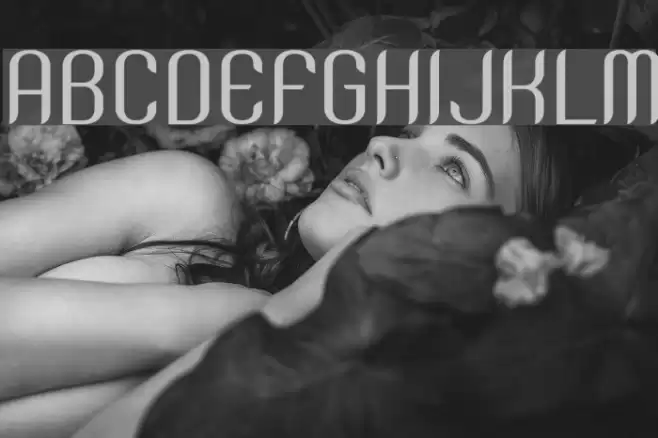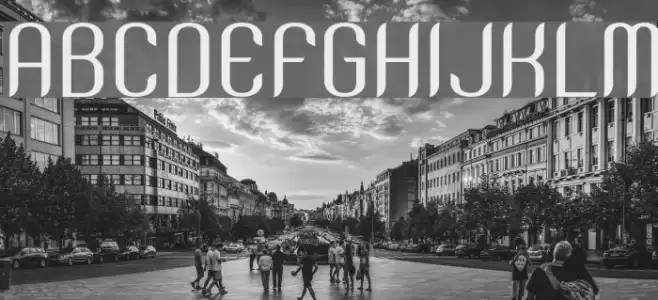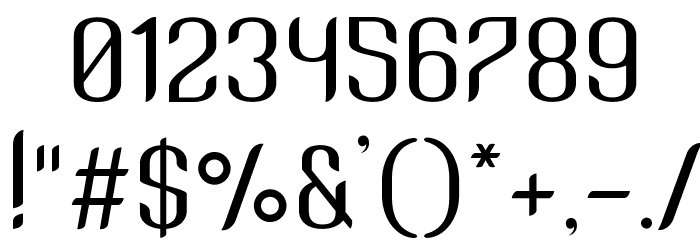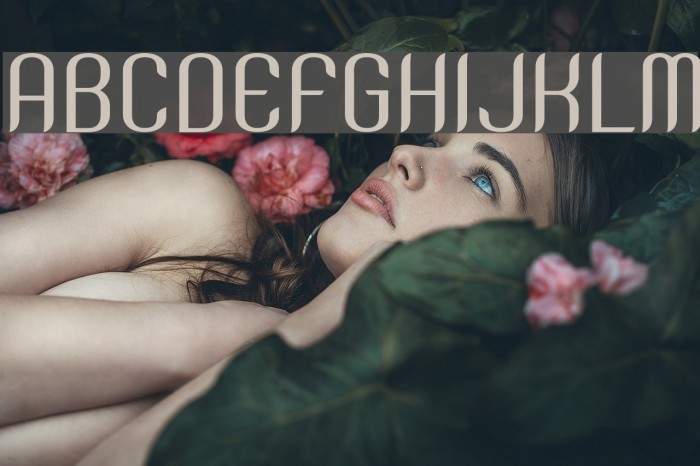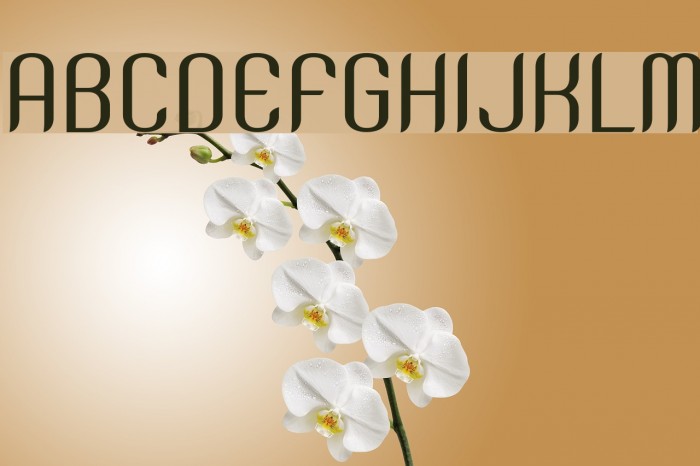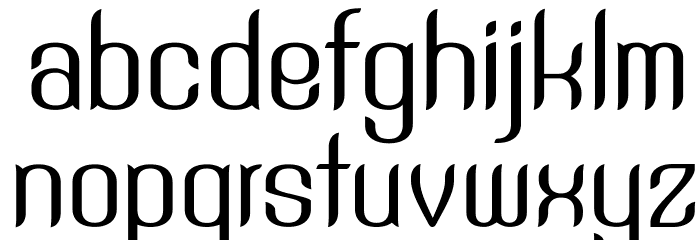
SNTAnouvong Font
SNTAnouvong Description
This font features a modern and sleek design with rounded edges and a geometric structure. The characters are uniform in width, giving it a monospaced appearance, although it maintains a sense of fluidity and movement. The uppercase letters are bold and prominent, while the lowercase letters retain a similar width, creating a cohesive look. Numbers and special characters are designed to match the overall style, ensuring consistency across all elements. The font's clean lines and contemporary aesthetic make it suitable for a variety of applications.
A modern, geometric font with rounded edges and uniform width from Uncategorized fonts.
- Proposed Projects: Ideal for branding, digital interfaces, and modern print designs.
- Use Case: Headlines, Logos, Digital Interfaces